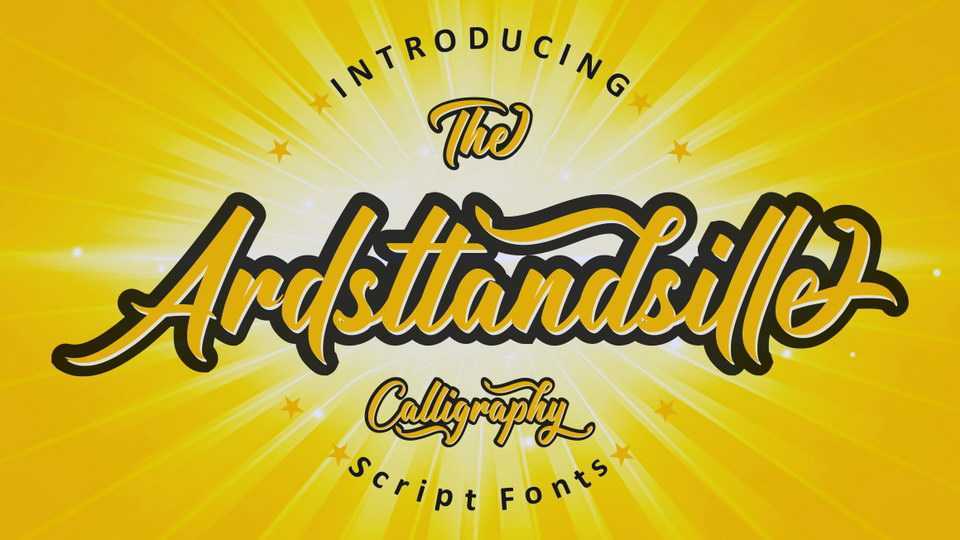
Download Ardsttandsille font, a bold and strong script carefully crafted with calligraphy style. Ardsttandsille font has unique look and is perfect for branding, logotype and other design needs.
Designer: Kokok studio